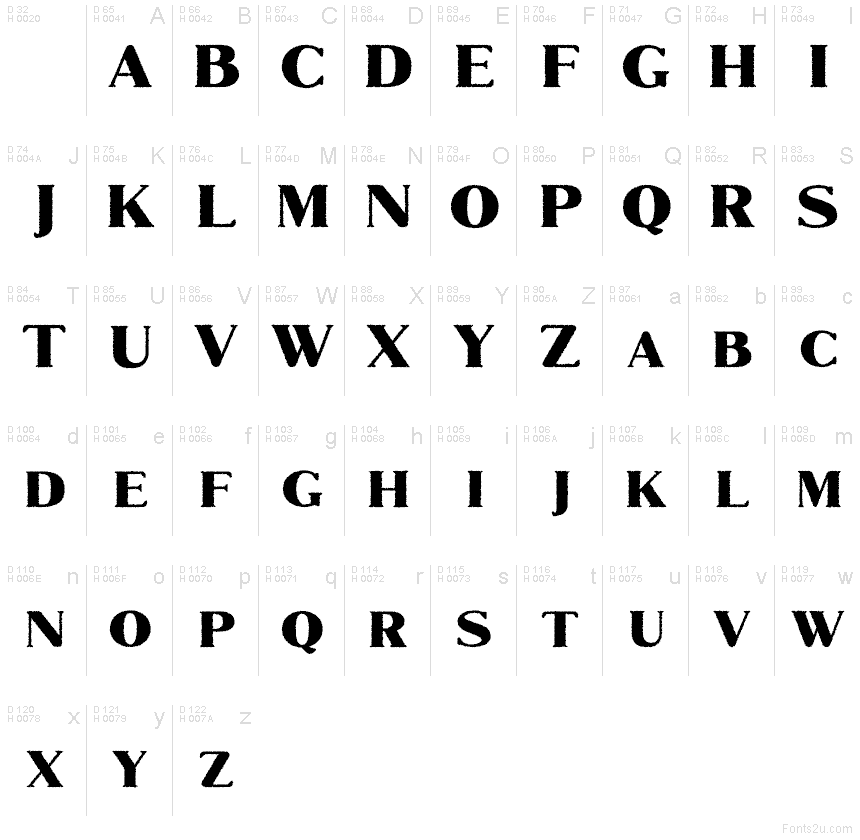
MarquesRoundedRough-Regular Demo
Marques Rounded Rough font by Craft Supply Co. is a bold expanded serif font with a textured appearance that evokes a historical character and vintage feel. The rough edges give it an overall sophisticated dramatic presence suitable for projects that need extra attention and elegance.
Marques Rounded Rough Demo